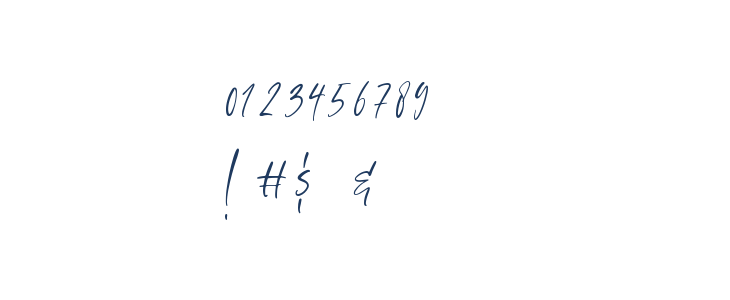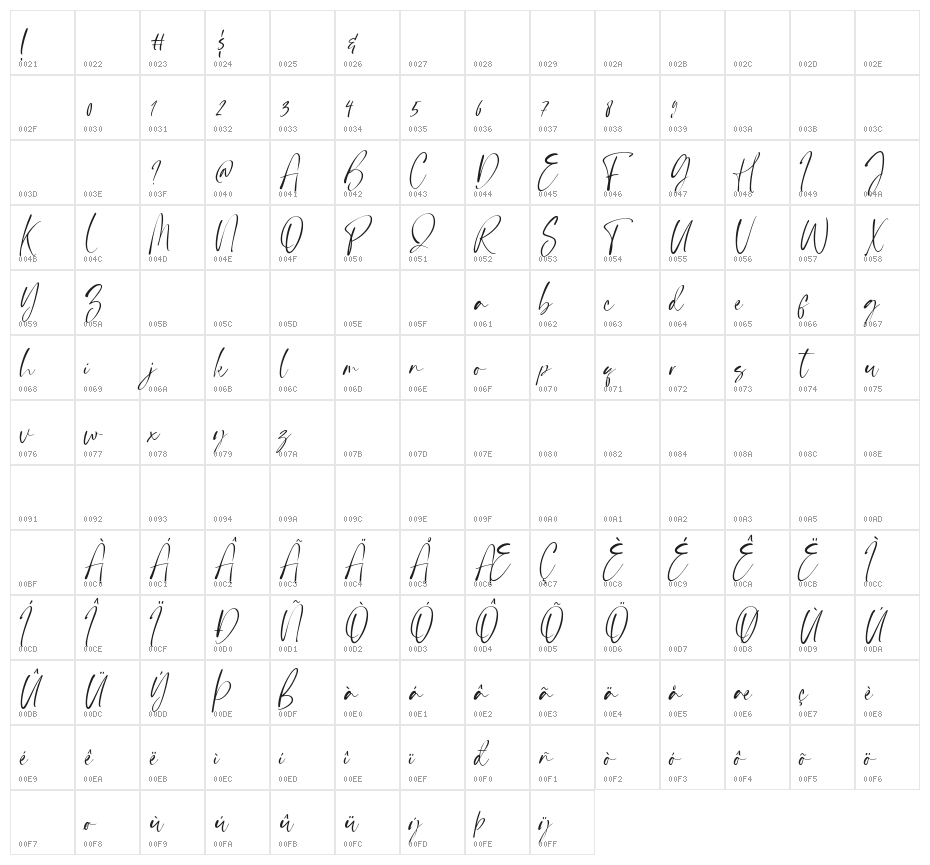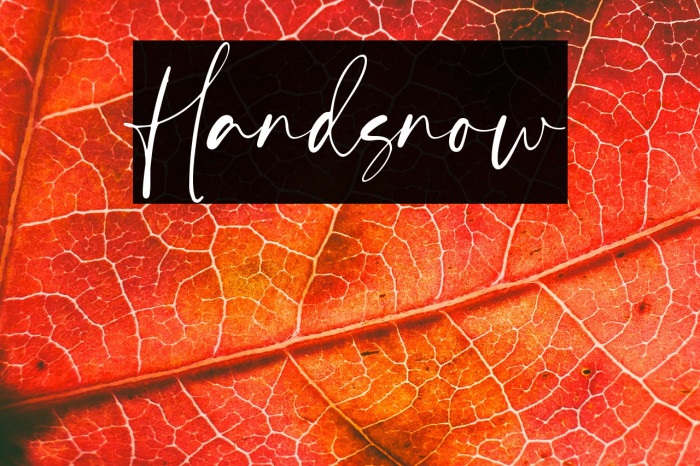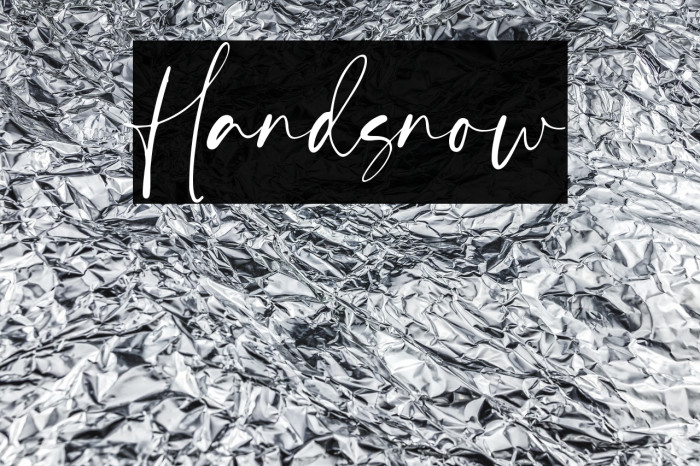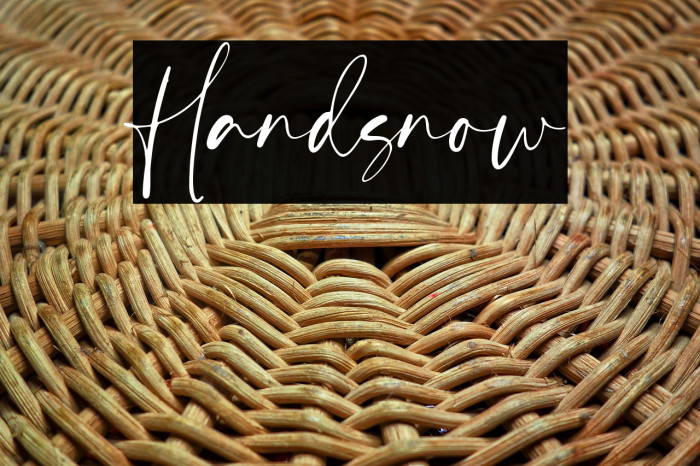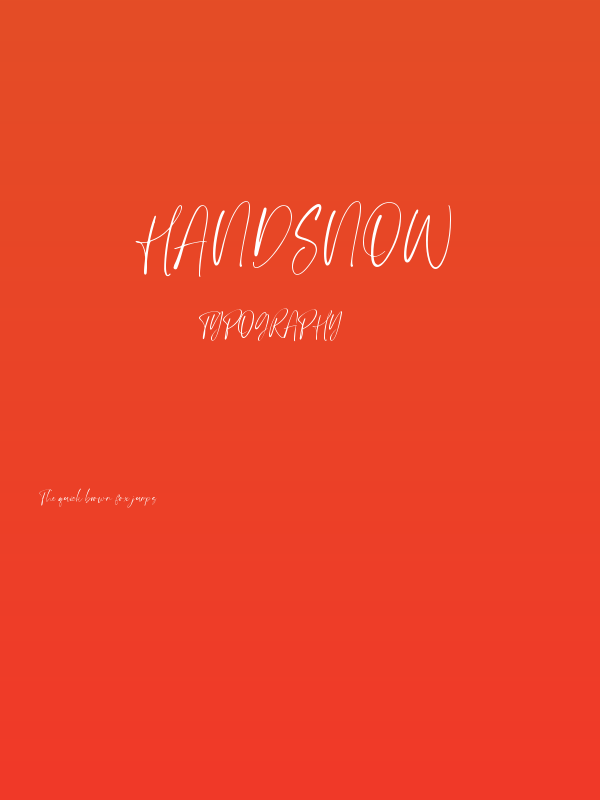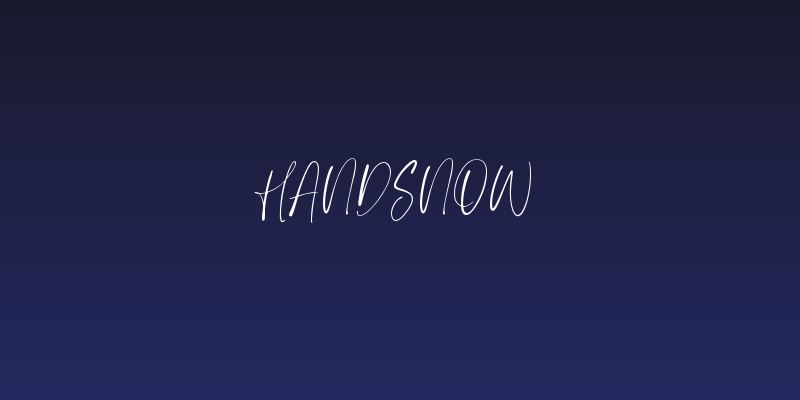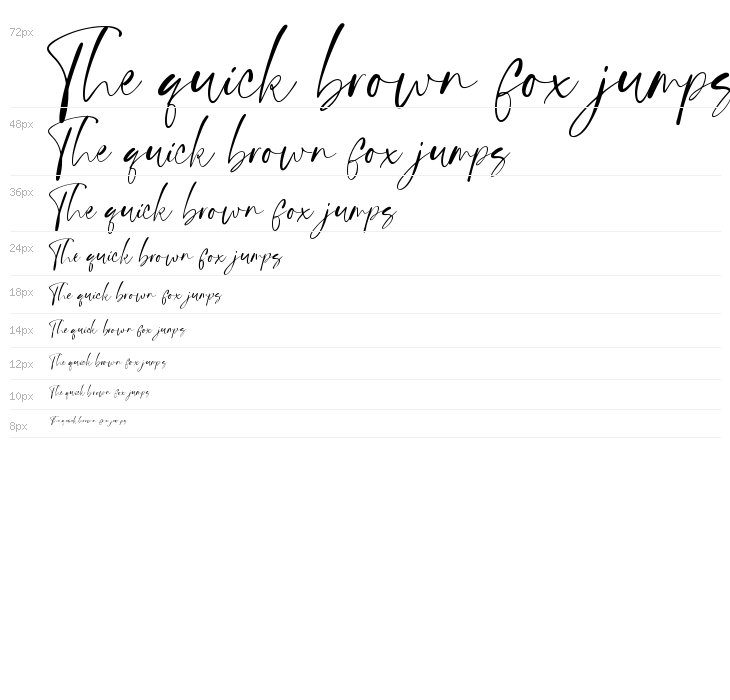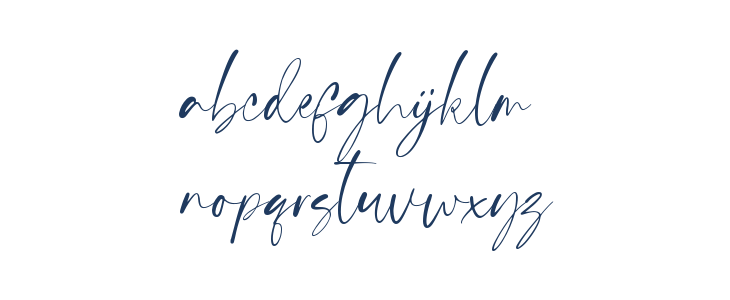
Handsnow Font
Handsnow Description
This font features a dynamic and fluid script style, characterized by its elegant and flowing letterforms. The uppercase letters exhibit a graceful, sweeping motion, while the lowercase letters maintain a consistent rhythm with delicate curves. The numerals are stylishly integrated, matching the overall aesthetic. Special characters are thoughtfully designed, adding to the font's versatility. The strokes vary in thickness, providing a medium contrast that enhances readability while maintaining an artistic flair. This font is perfect for projects that require a personal and sophisticated touch.
Overall StyleElegant
Use CaseLogos, Invitations, Decorative text
Proposed ProjectsIdeal for wedding invitations, branding, greeting cards, and elegant packaging designs.